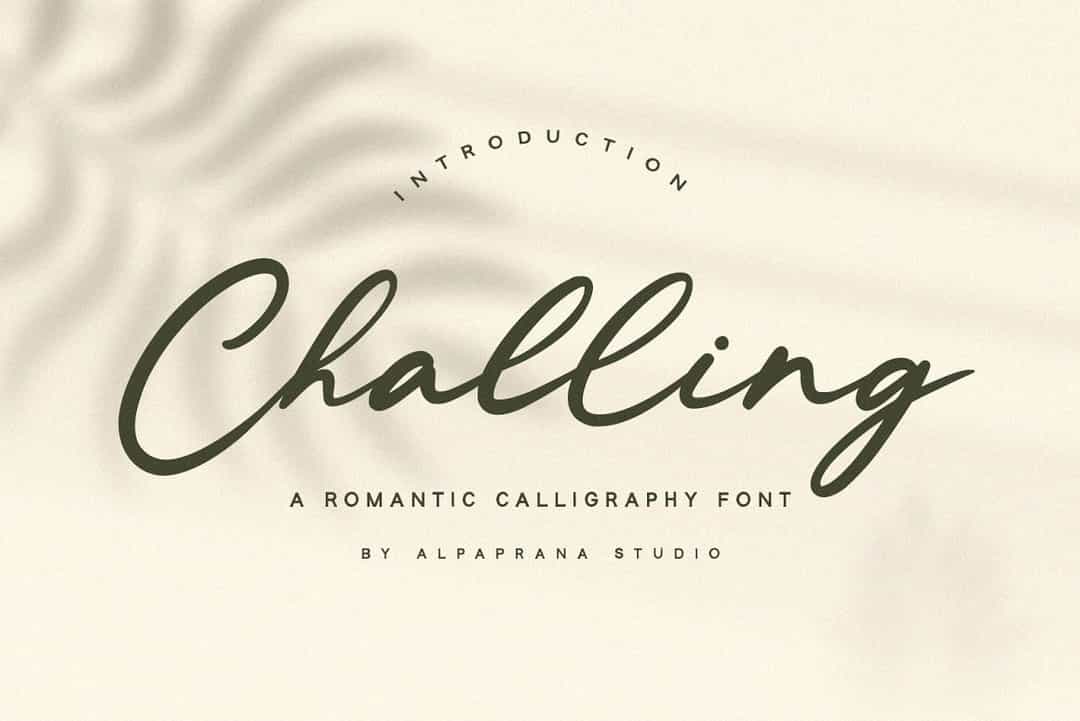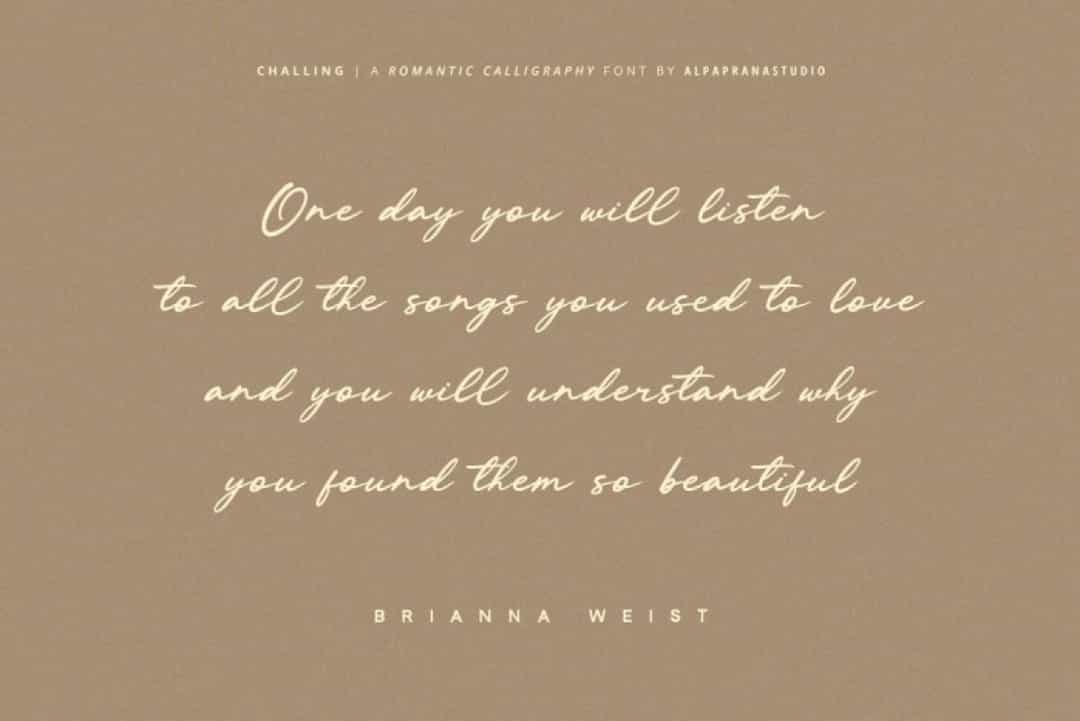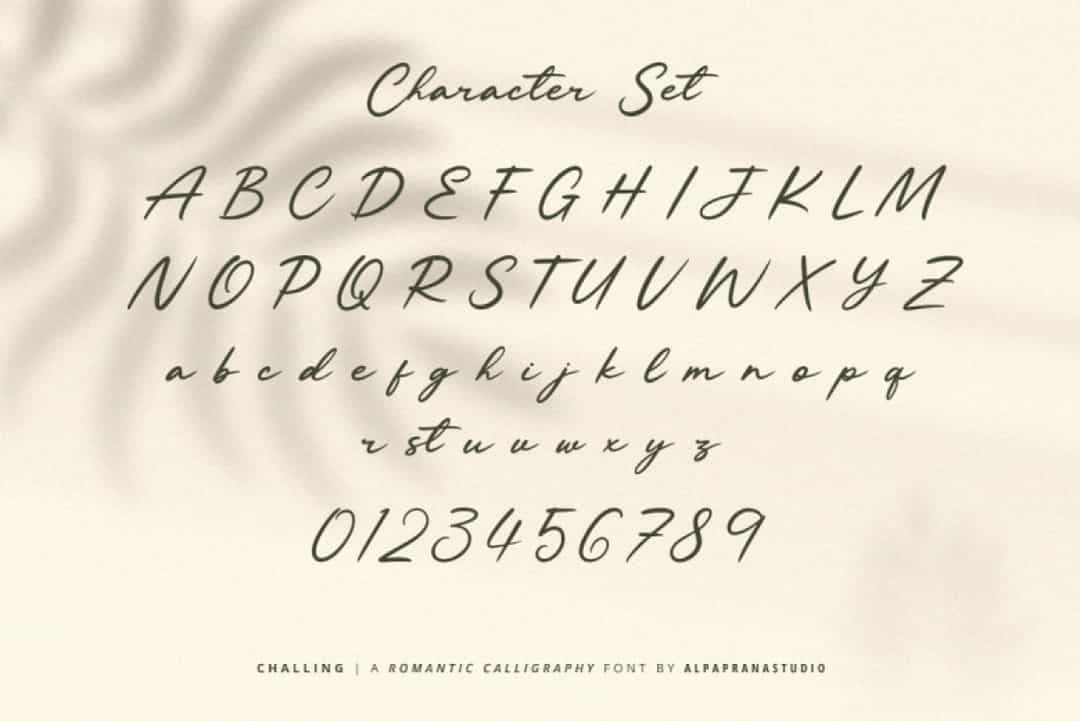
Discover Challing Font, part of the Calligraphy collection—a versatile and unique font perfect for adding a personal touch to your projects. Download it for free and enjoy crafting designs with style, from invitations to social media posts. This font is available exclusively for personal use, giving you the freedom to create without limits. Unlock your creativity with Challing Font today!
Challing is an elegant Calligraphy font with modern and natural appeal, perfect for branding, logo Design and Lettering as well as Logotype development for clothing, Magazine, packaging posters as well as shopping bags, posters T-shirts book covers photography special events as well as various design projects.